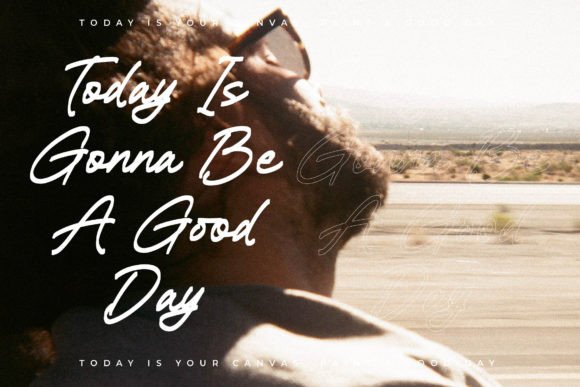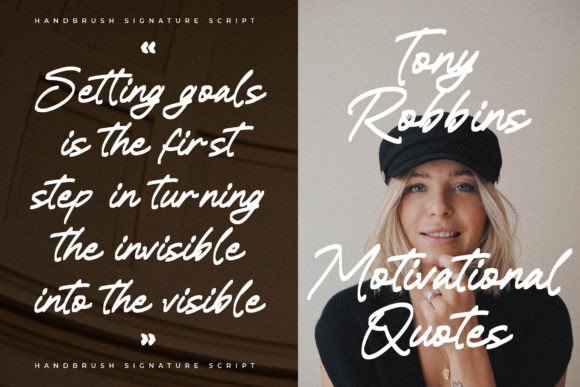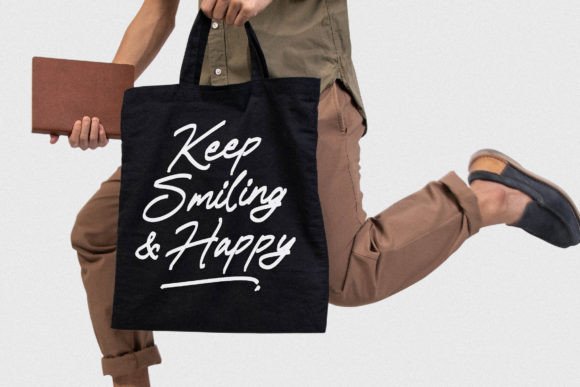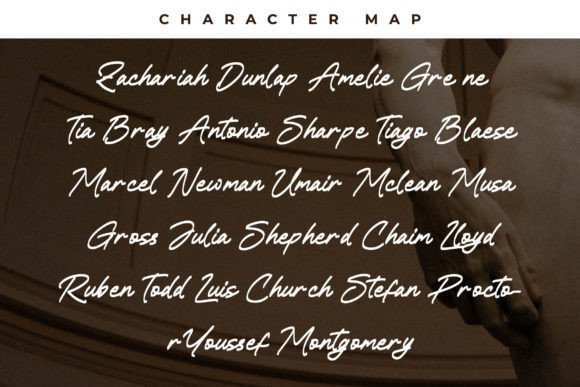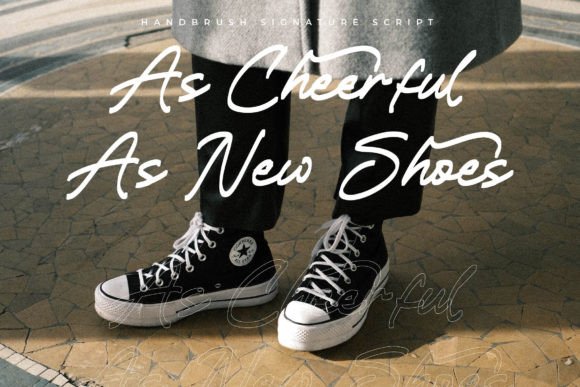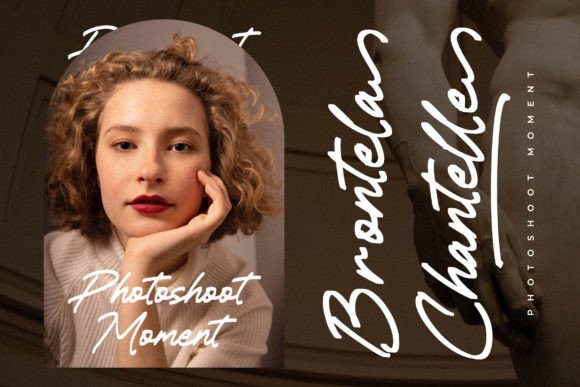
Introduction to Juditha Hollden Font
Have you ever found yourself in the midst of a creative project, desperately searching for the perfect font to bring your vision to life? The struggle is real, especially when you’re aiming for a high-quality, personalized look that sets your design apart. That’s where the Juditha Hollden Font comes in – a stunning handwritten font that’s sure to elevate any project.
As a valuable resource for designers, the Juditha Hollden Font offers a unique blend of elegance and sophistication, making it perfect for a wide range of applications, from wedding invitations to logos and greeting cards. With its beautiful, flowing script, this font is sure to add a touch of warmth and personality to any design.
Key Features of Juditha Hollden Font
- Unique characteristics, including intricate details and subtle nuances, making it stand out in creative projects.
Honest Review: Juditha Hollden Font
I recently had the chance to work with the Juditha Hollden Font, and I must say it’s been a game-changer for my creative projects. This high-quality design resource has made it easy to create stunning visuals without breaking the bank.
What works well: ✨ The font is incredibly versatile, with a range of weights and styles to choose from. The transparent background option is also a huge plus, allowing me to easily layer my designs and create complex compositions. The free download option is also a major bonus, making it accessible to designers of all levels.
- Customizable weights and styles
Any limitations: ⚠️ While the font is generally easy to use, I did find that the installation process can be a bit finicky on some systems. Additionally, the font may not be suitable for very large-scale designs, as it can become pixelated at high resolutions.
Overall, I’m thoroughly impressed with the Juditha Hollden Font. It’s a great addition to any designer’s toolkit, and I would highly recommend it for any creative project. With its high quality, versatility, and affordability, it’s a resource that I’ll be using for a long time to come.
Getting the Most Out of Juditha Hollden Font
For optimal results, use the Juditha Hollden Font in conjunction with other high-quality design resources. Experiment with different font sizes, colors, and arrangements to create visually appealing designs.
The Juditha Hollden Font is suitable for a wide range of creative projects, including:
• Branding and logo design
• Infographic creation
• Social media graphics
• Blog post headers
• Business card design